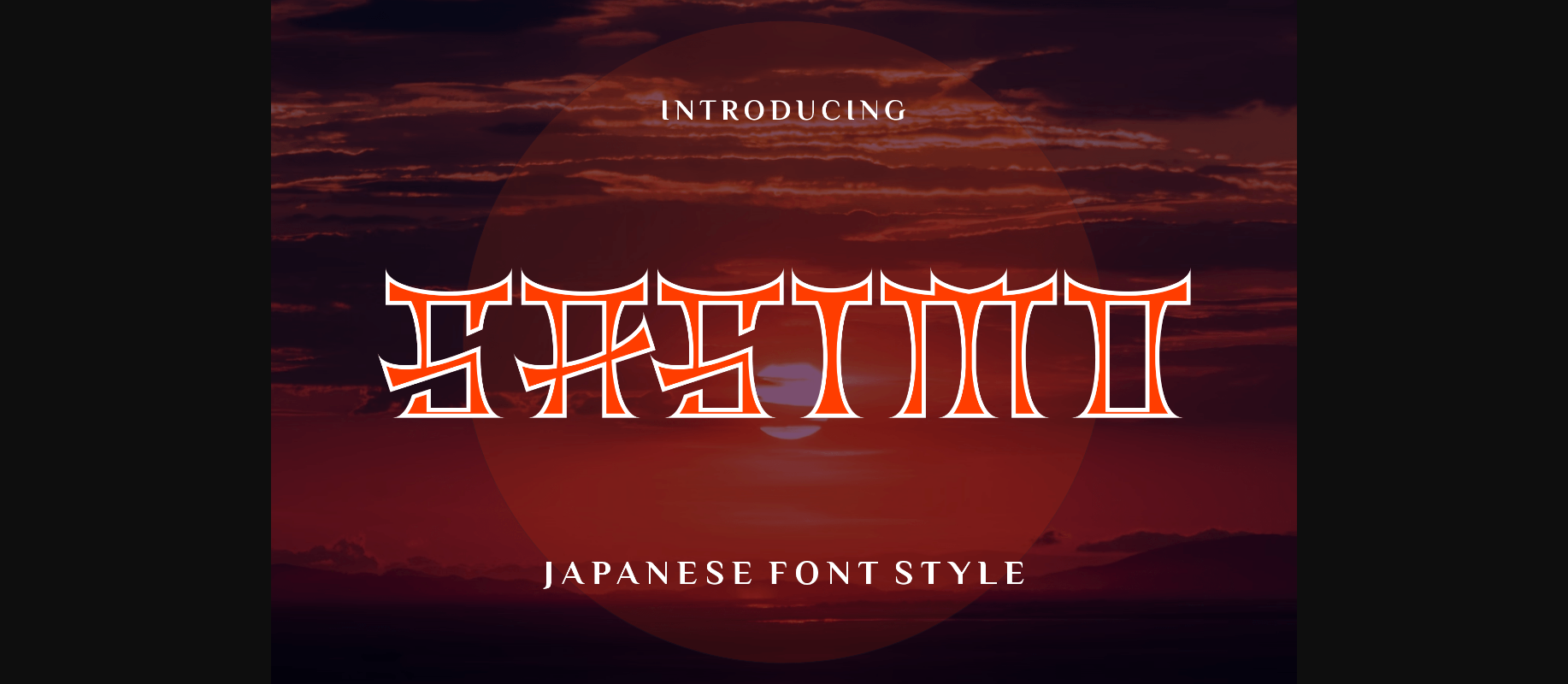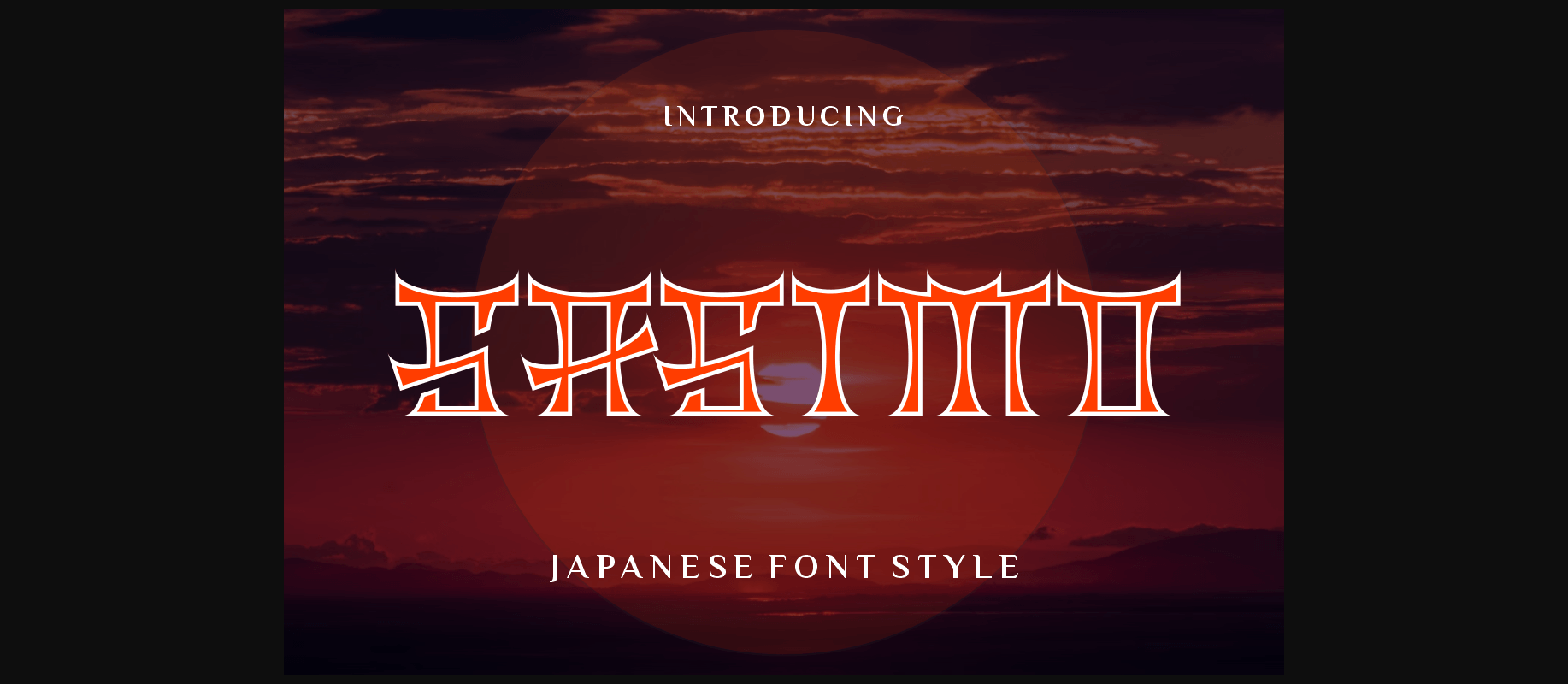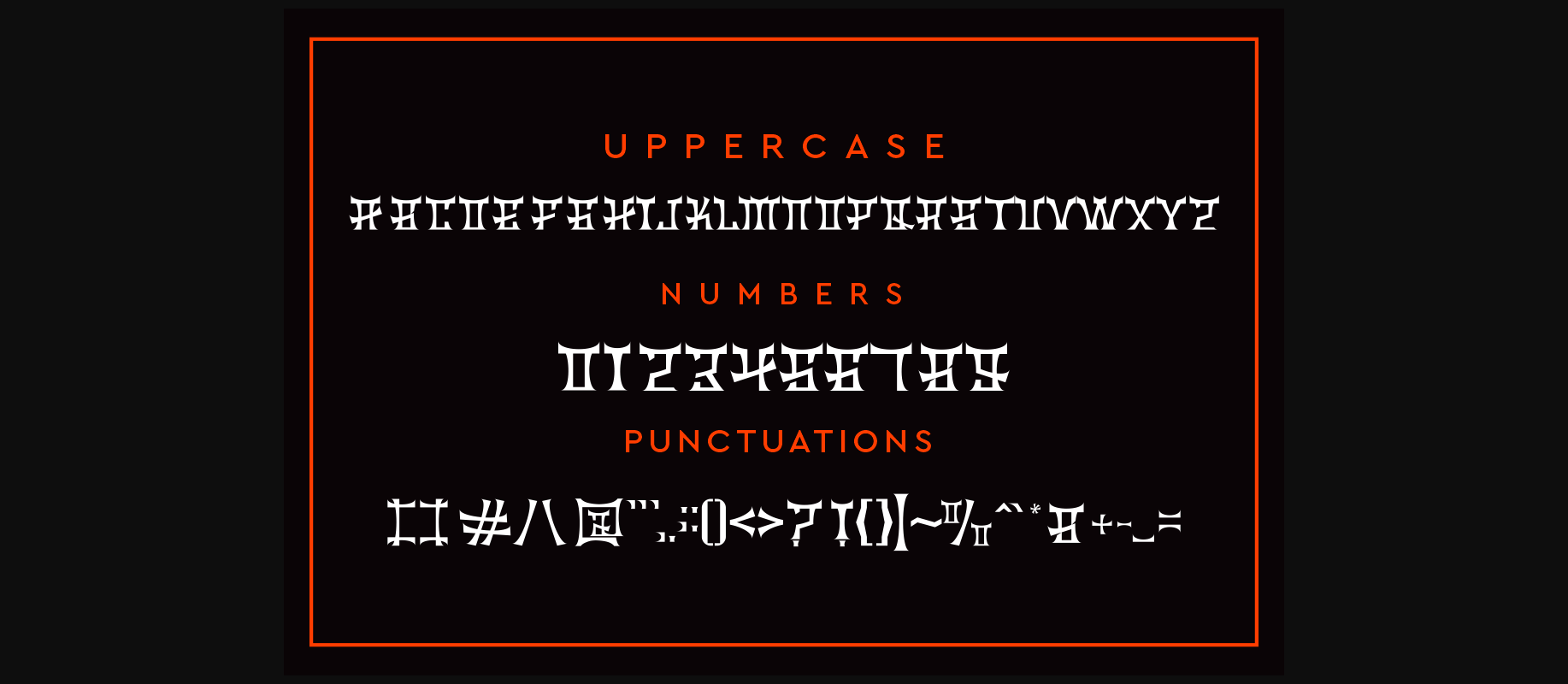
About Sasimo Font
Sasimo is a unique decorative font that feels beautiful and has an Asian feel. This font is perfectly suited for a wide variety of projects, such as signature, stationery, logo, wedding, typography quotes, magazine or book cover, website header, clothing, branding, packaging design, and more.